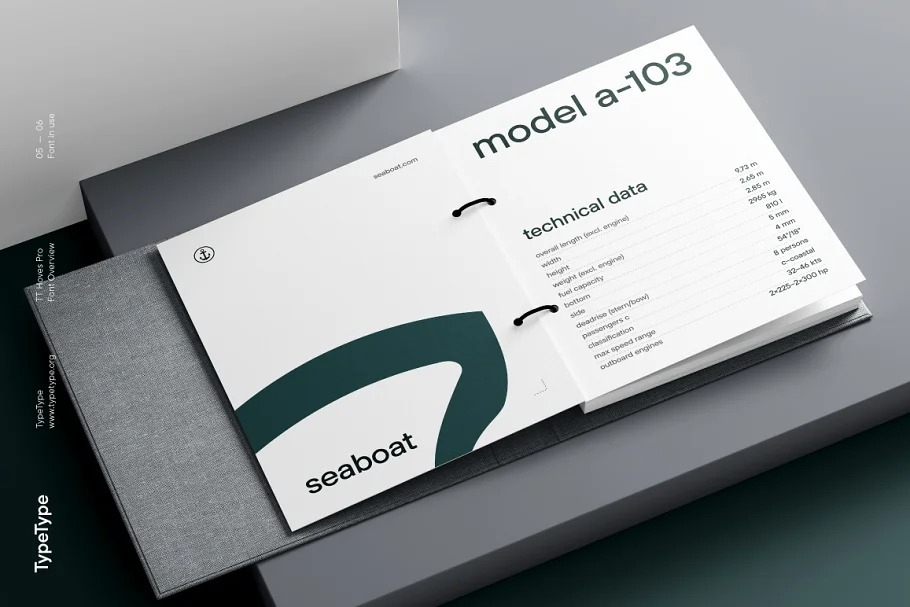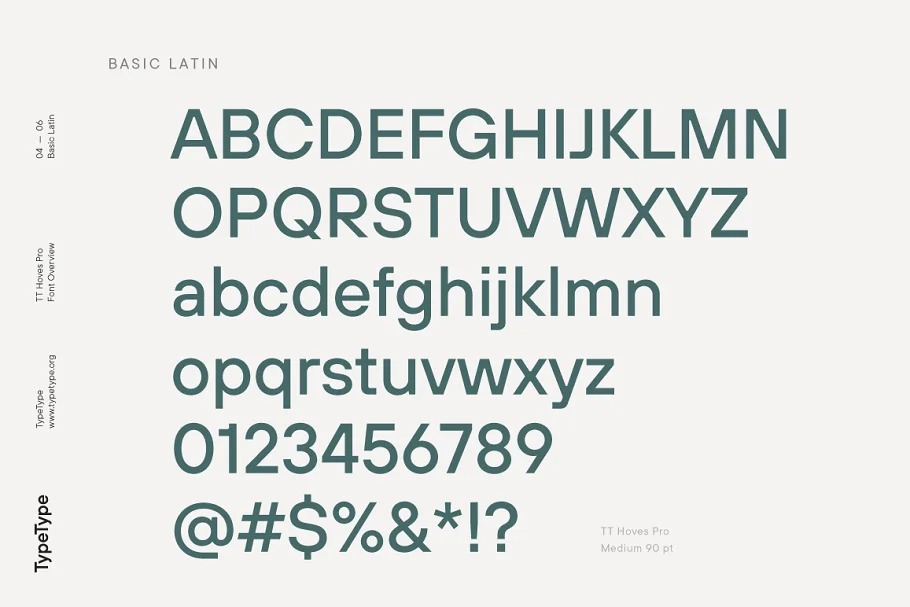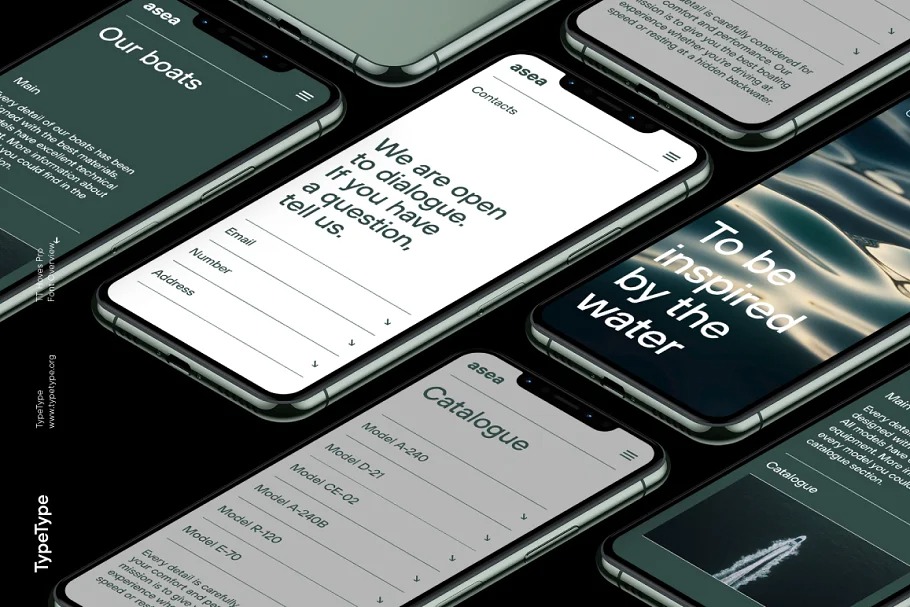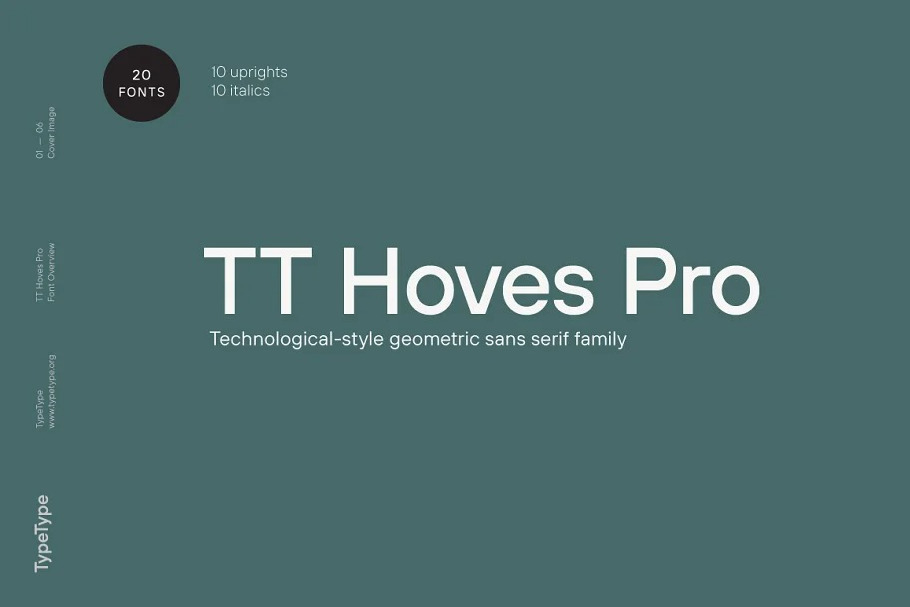
TT Hoves Pro Font
TT Hoves Pro Sans Serif Font created with the vision of to attract the audience to your brand . The finest details of this typeface are methodically and mathematically created. In TT Hoves Pro, we have fully preserved the nature and visual features, of the font, focusing on its technical content. The new version of the popular sans-serif is more functional and more convenient: we increased the character set, improved the look of terminals and ascenders and descenders, redrawn italics and, of course, added a new variable font.
TT HovesPro is still a versatile sans-serif with a recognizable pattern and geometry. There is no pronounced contrast in the font, all terminals are located on the same level. The triangular characters have wide horizontal strokes, creating the characteristic TT HovesPro look.
We have significantly expanded the composition of the font family. With the addition of Condensed and Expanded versions, which are narrower and wider than the classic version, there are additional options for designers. Of course, new styles have been added to the variable font, which can now be changed along three axes: weight, width, and slant.
With TT HovesPro, the font’s application scope has expanded significantly, and the updated family can be used everywhere: in web design, in applications and on websites, in print.
TT HovesPro consists of 63 styles: 30 uprights, 30 italics, one variable and two outline fonts. Each style contains 1389 glyphs. The font contains 41 OpenType features, a large number of ligatures and stylistic alternatives.